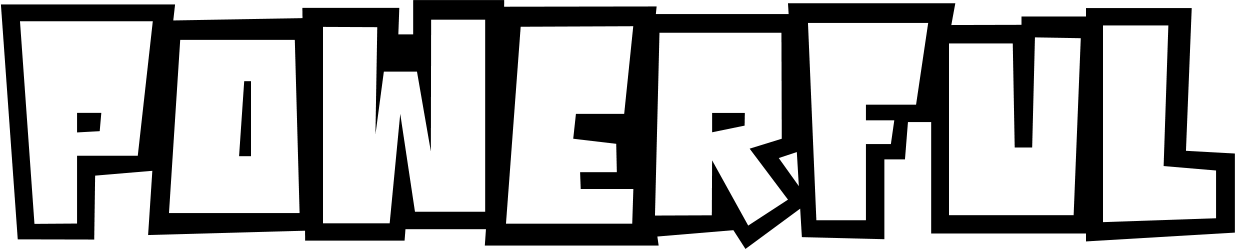
Powerful Font
Undoubtedly, cartoon fonts are one of the best choices for friendly and happy situations. They can be used for books, apparel, titles, or any text-based project. The letters have a stroke and come in a wide style. Note that Powerful font doesn’t support lowercase letters. If you seek more gaming fonts, head over to RB.